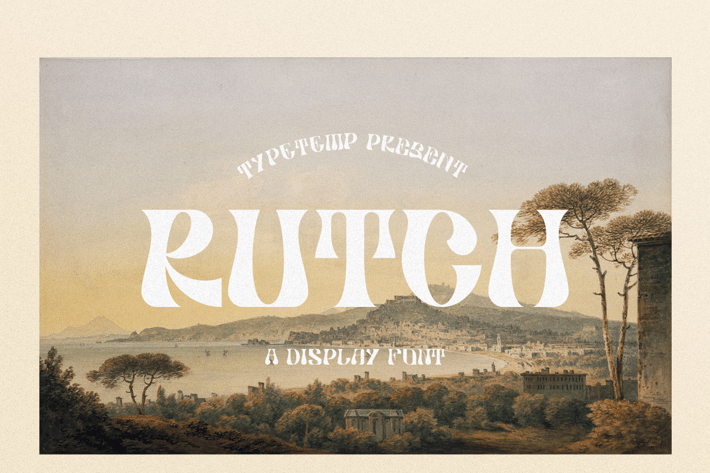
Rutch Display Font
RUTCH - Display is complemented by some of the same alternatives made with love. Access your OpenType features to access the large selection of alternate letters and ligatures, select the letters you like from the large variety to get the display font you like. Perfect for editorial projects, Logo design, Clothing Branding, product packaging, magazine headers, or simply as a stylish text overlay to any background image.
Stylistic Alternates & Ligatures
Numerals & Punctuation
Multilanguange